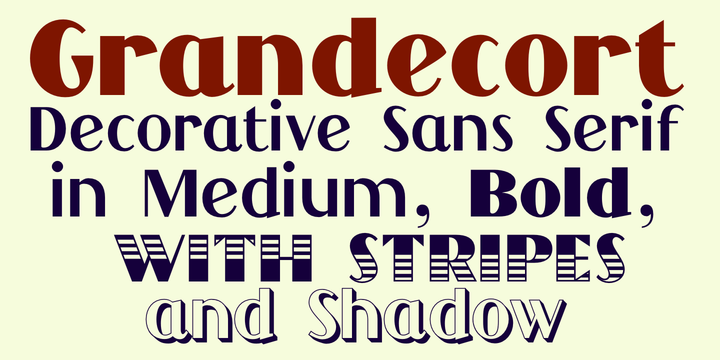
Grandecort is derived from the OakPark family. It has lost the serifs, and has moved to a more traditional look. The upper case letters are a bit heavier than the lower case letters, but overall the letter shapes are fairly conventional for a bold, display face.